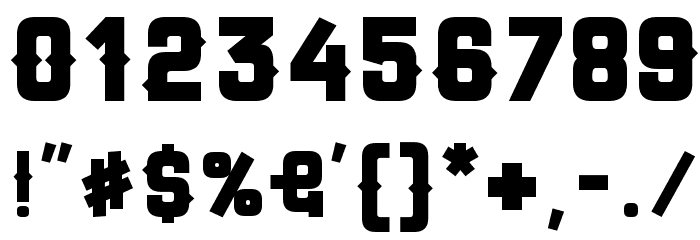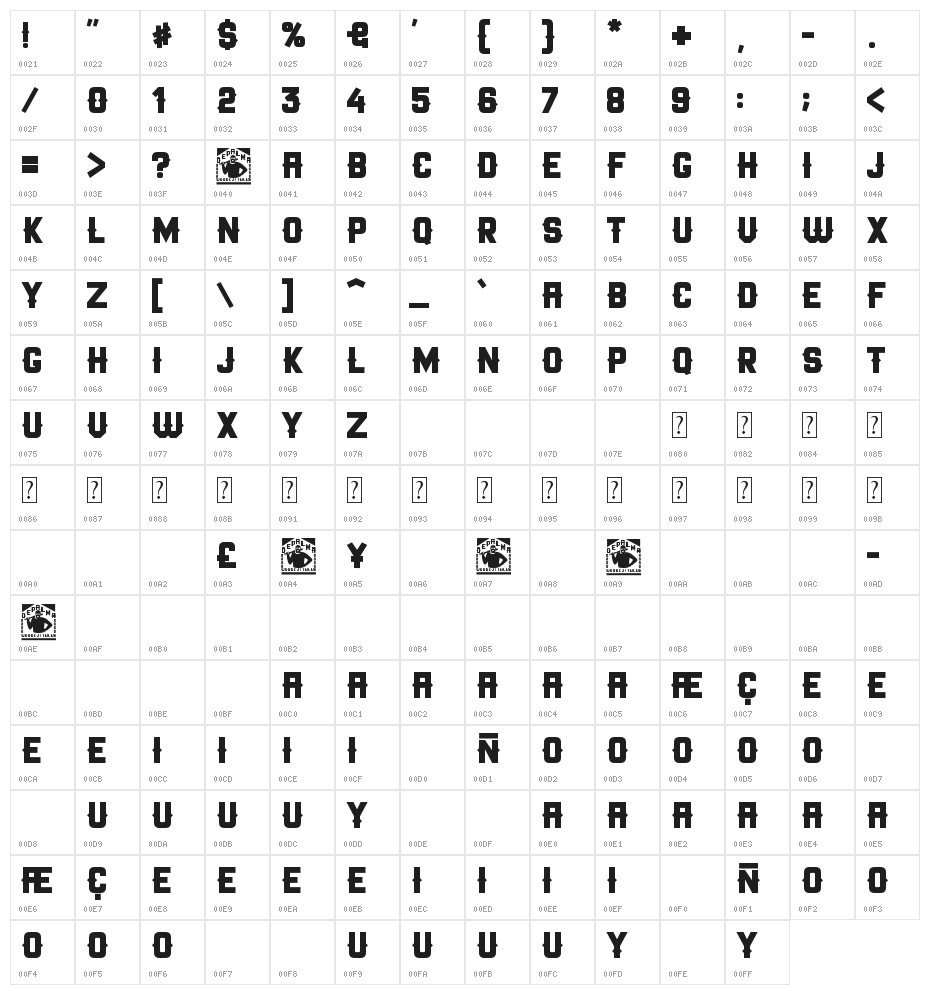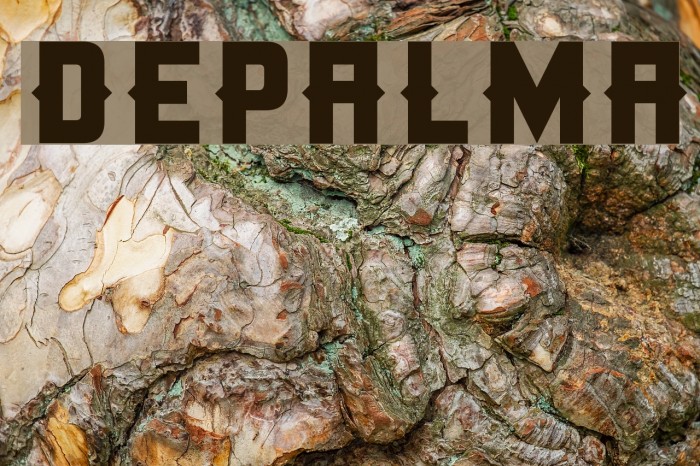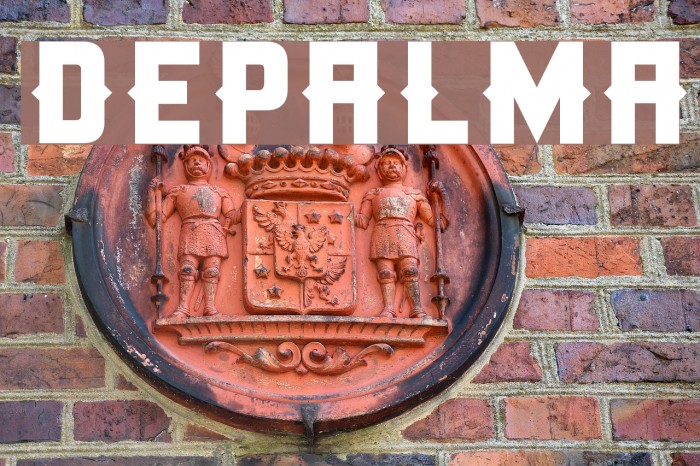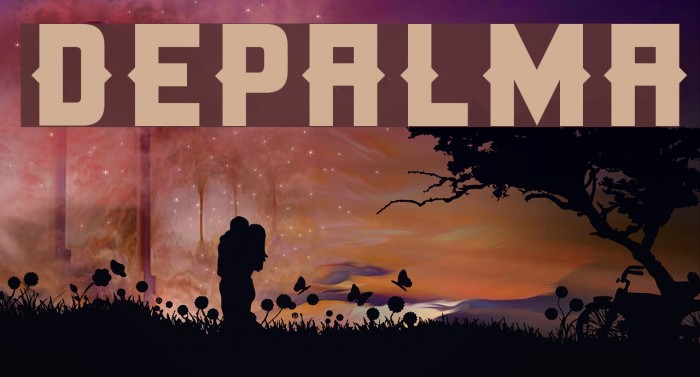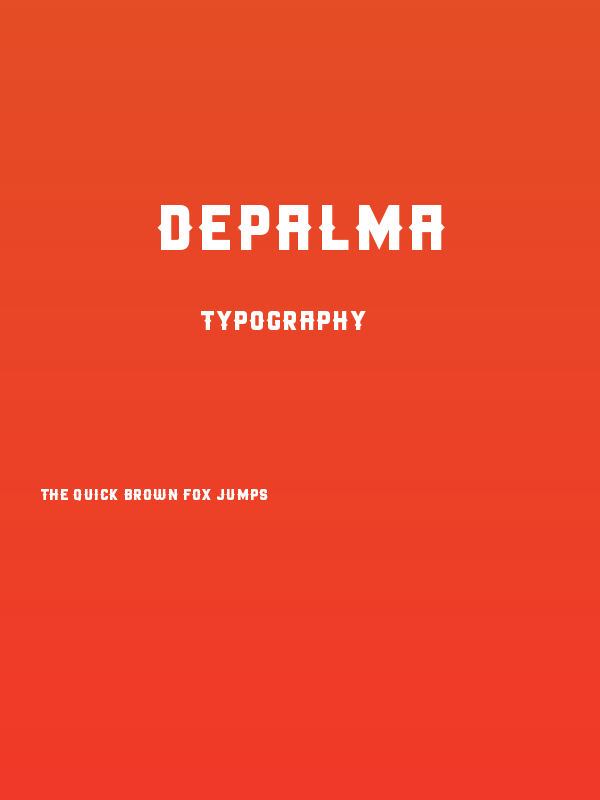
DEPALMA Font
DEPALMA Description
This font features a bold and striking design with a strong geometric influence. The characters are constructed with thick, uniform strokes that create a sense of solidity and impact. The angular cuts and sharp edges give it a modern and industrial feel, making it stand out in any design. The uppercase letters are particularly prominent, with a consistent height and width that ensure readability and visual balance. The numerals and special characters maintain the same boldness, ensuring a cohesive look across all text elements. This font is ideal for projects that require a strong visual presence and a contemporary aesthetic.
| Proposed Projects | Ideal for branding, posters, headlines, and any design needing a strong, modern impact. |